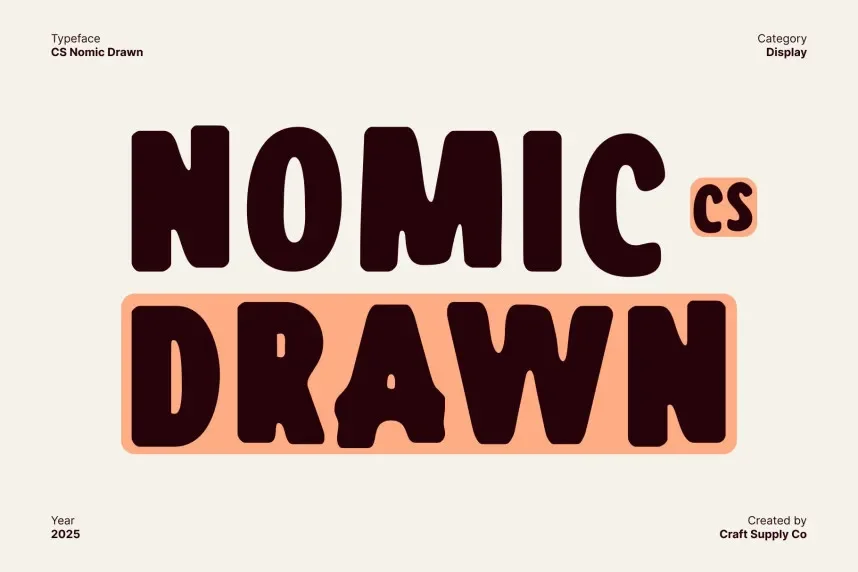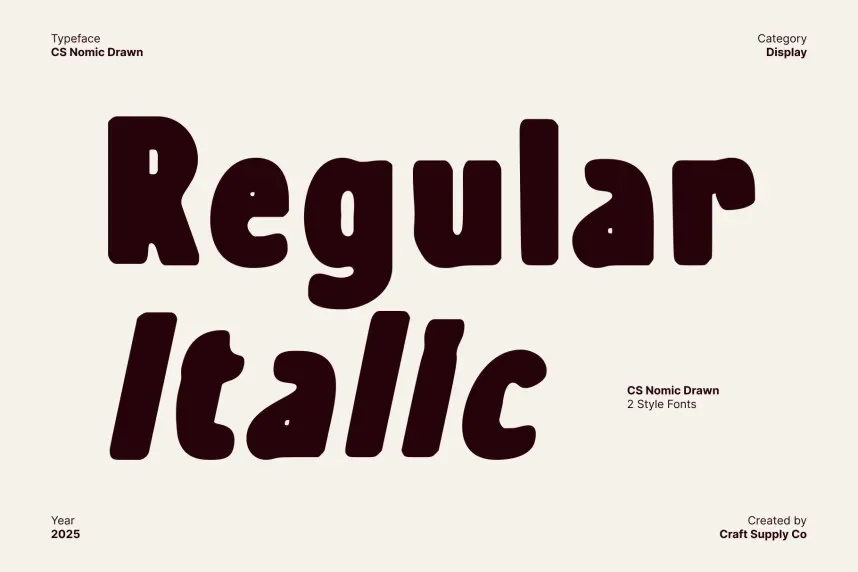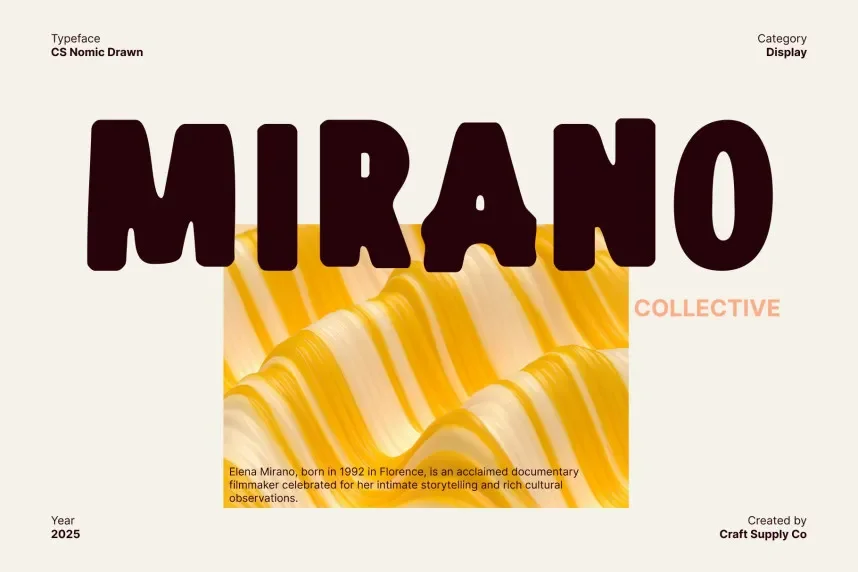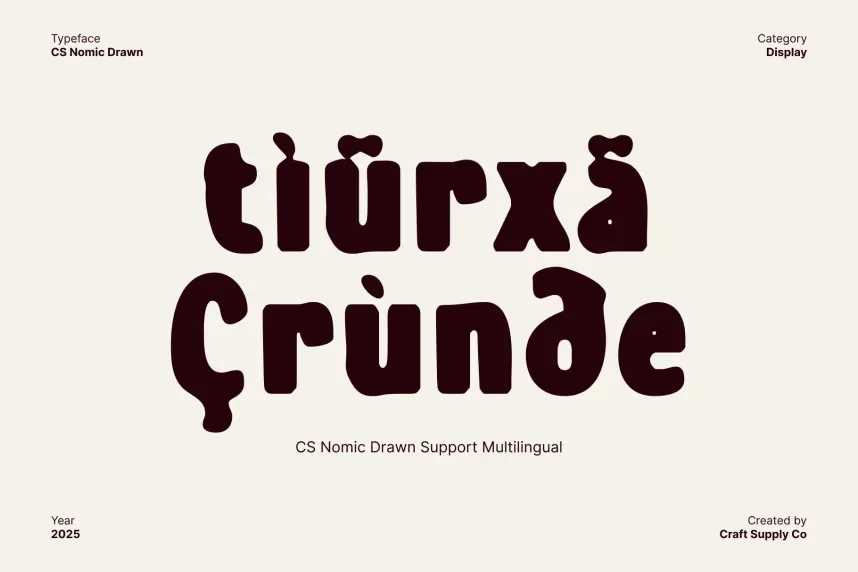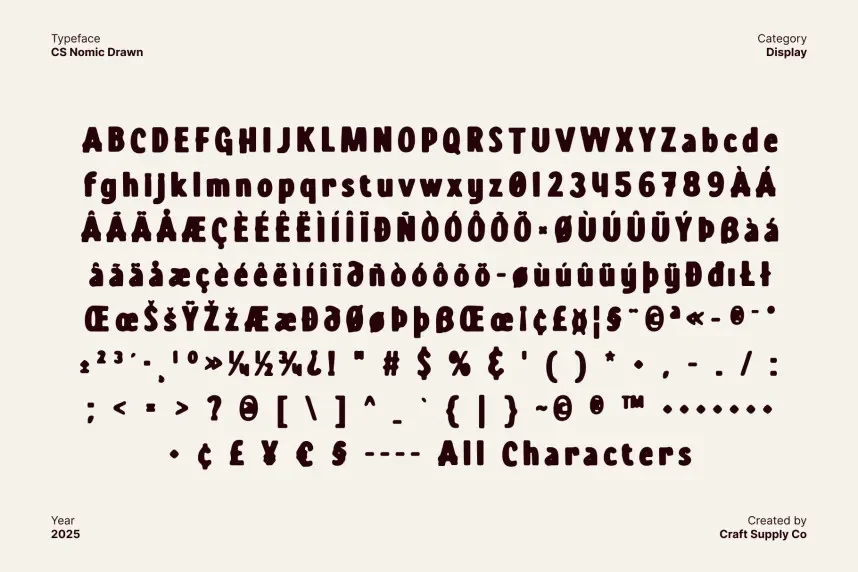
CS Nomic Drawn Font is a bold sans-serif font that combines sharp lines with a geometric structure, offering a modern and professional appearance. It’s perfect for tech-related branding, futuristic designs, and eye-catching headlines that demand attention while maintaining readability.